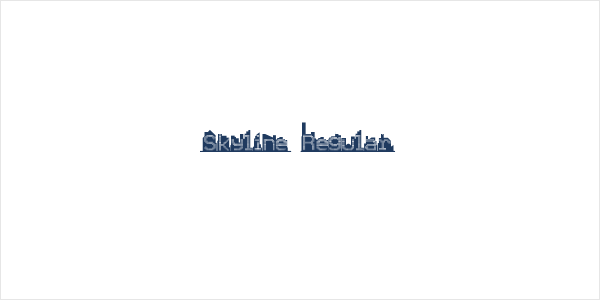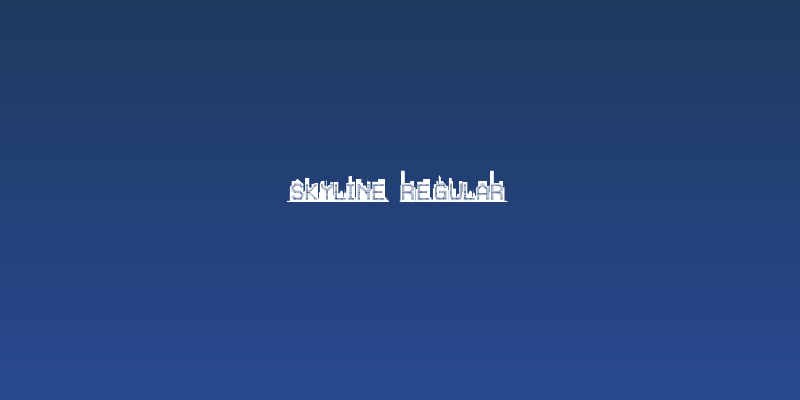
Skyline Regular Font
Skyline Regular Description
This font features a sleek and modern design with clean lines and a geometric structure. The characters are well-balanced, offering a contemporary feel that is both stylish and functional. The uppercase letters are bold and assertive, while the lowercase letters maintain a consistent flow, enhancing readability. Numbers and special characters are crafted with precision, making them suitable for various applications. The overall appearance is professional and versatile, ideal for digital and print media.
| Proposed Projects | Ideal for branding, web design, advertising, and editorial layouts. |